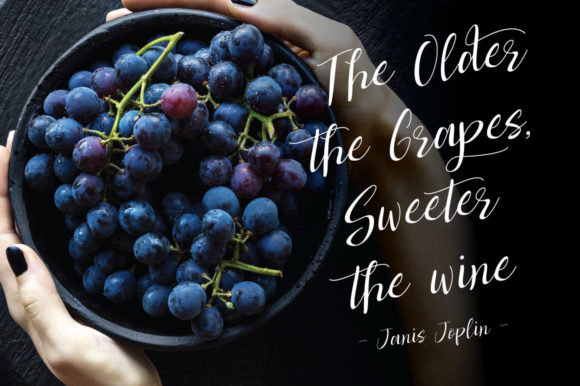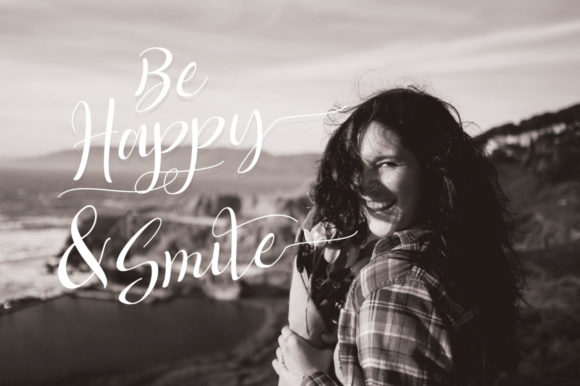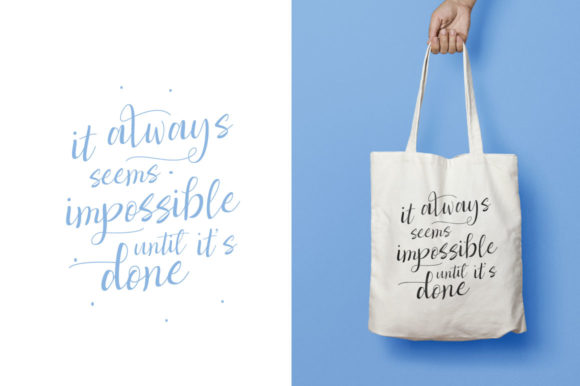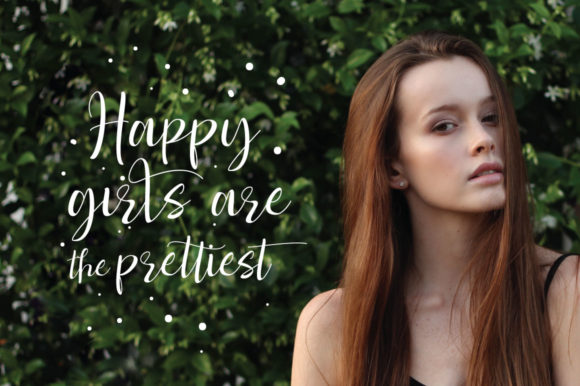
The Perfect Script for Your Next Design Project
Have you ever sat at your desk, staring at a blank page, feeling stuck and uninspired? I know I have. It’s those moments when the creative well runs dry that I remind myself of the beauty of a well-designed font. And that’s exactly where the Dolcetto Script Font comes in – a modern calligraphy script that adds a touch of elegance and sophistication to any design.
This beautiful script font is perfect for adding a luxurious feel to your designs, whether it’s a wedding invitation, a branding project, or a social media post. Its feminine style is sure to capture the attention of your audience and leave a lasting impression. As a designer, having access to high-quality fonts like the Dolcetto Script Font can be a game-changer, elevating your work from good to great in an instant.
Dolcetto Script Font Key Features
- Unique Characteristics: Handwritten, cursive, and elegant script font with a touch of sophistication and whimsy
- Font Weight: Available in 6 weights, from Light to Extra Bold, to accommodate various design needs
Dolcetto Script Font Review
Overall, I’m quite impressed with the Dolcetto Script Font. It’s a beautiful, elegant script font that’s perfect for adding a touch of sophistication to your designs. ✨ Here are some of its strengths:
- Unique and stylish: The Dolcetto Script Font has a distinctive, hand-written feel that sets it apart from more generic script fonts.
- Highly legible: Despite its cursive design, the font is surprisingly easy to read, making it perfect for body text or headings.
- Wide character set: The font includes a wide range of characters, including accented letters and punctuation marks.
- Limited font weights: The Dolcetto Script Font only comes in a few font weights, which may limit its versatility in certain designs.
- Not ideal for large text: While the font is highly legible, it may not be the best choice for large text sizes, as it can become difficult to read.
Overall, I’d highly recommend the Dolcetto Script Font for designers looking to add a touch of elegance to their designs. With its unique style and high legibility, it’s a great choice for a wide range of projects, from invitations to marketing materials.
Dolcetto Script Font: A Practical Application Guide
Some popular use cases for Dolcetto Script Font include:
– Branding and marketing materials
For best results, use Dolcetto Script Font in conjunction with a clean and simple design aesthetic, and adjust the font size and color to create visual contrast and balance.
Alternatives to Dolcetto Script Font
Alex Brush is a beautiful, elegant script font that is perfect for creative and artistic projects. It features a flowing, handwritten feel and is ideal for use in invitations, branding, and advertising.
Compared to Dolcetto Script Font, Alex Brush has a more delicate and refined look, making it suitable for more formal and sophisticated designs. It is also highly customizable, allowing designers to adjust the weight, spacing, and other characteristics to suit their needs.
Carolyna Pro is a modern script font that is perfect for designers who want to add a touch of elegance and sophistication to their projects. It features a flowing, handwritten feel and is ideal for use in branding, advertising, and editorial design.
Compared to Dolcetto Script Font, Carolyna Pro has a more modern and sleek look, making it suitable for contemporary and trendy designs. It also features a wide range of weights and styles, allowing designers to choose the perfect fit for their project.
Great Vibes is a beautiful, elegant script font that is perfect for designers who want to add a touch of whimsy and playfulness to their projects. It features a flowing, handwritten feel and is ideal for use in invitations, branding, and advertising.
Compared to Dolcetto Script Font, Great Vibes has a more casual and relaxed look, making it suitable for more casual and creative designs. It also features a wide range of weights and styles, allowing designers to choose the perfect fit for their project.
Q: What is the recommended font size and line height for using Dolcetto Script Font?
For optimal readability, we recommend using Dolcetto Script Font at a font size between 18-24 points and a line height of at least 1.5 times the font size. This will ensure the font appears legible and visually appealing in your design.